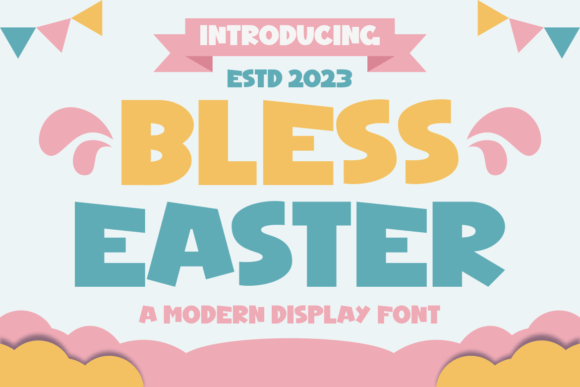
Introduction to Bless Easter Font
Bless Easter is a delightful and quirky display font that radiates joy and festivity.
With its playful and unique design, it captures the spirit of Easter and adds a touch of whimsy to any project Perfect for greeting cards, party invitations, and holiday-themed designs, Bless Easter brings a cheerful and celebratory vibe to your creations.
Key Features of Bless Easter Font